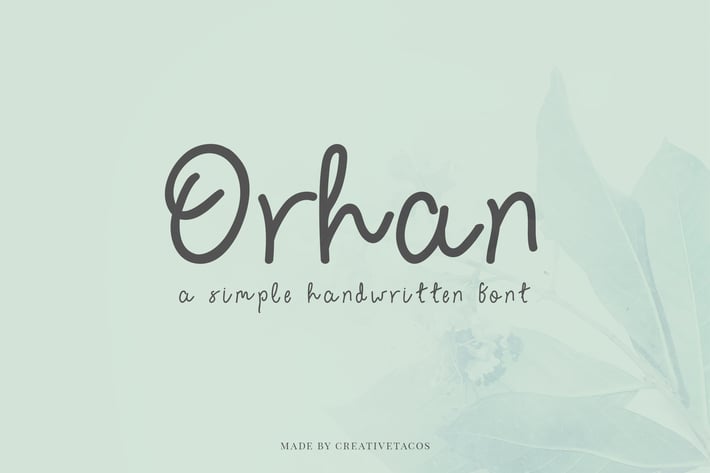
Orhan Handwritten Font
Orhan is a beautiful, lovely and cute style handmade font that can give you a unique touch to your forthcoming projects. It contains uppercase, lowercase, number, punctuation, symbols and supports multilingualism. Orhan font is great for various projects like packaging, presentations, logo, headlines, lettering, posters, branding, quotes, titles, magazine headings, web layouts, advertising, invitations, packaging design, books, and any type of creative project you can imagine.
Orhan Font Features:
- Uppercase Letters
- Lowercase Letters
- Support Multilingual (Latin Supplement + Latin Extended-A)